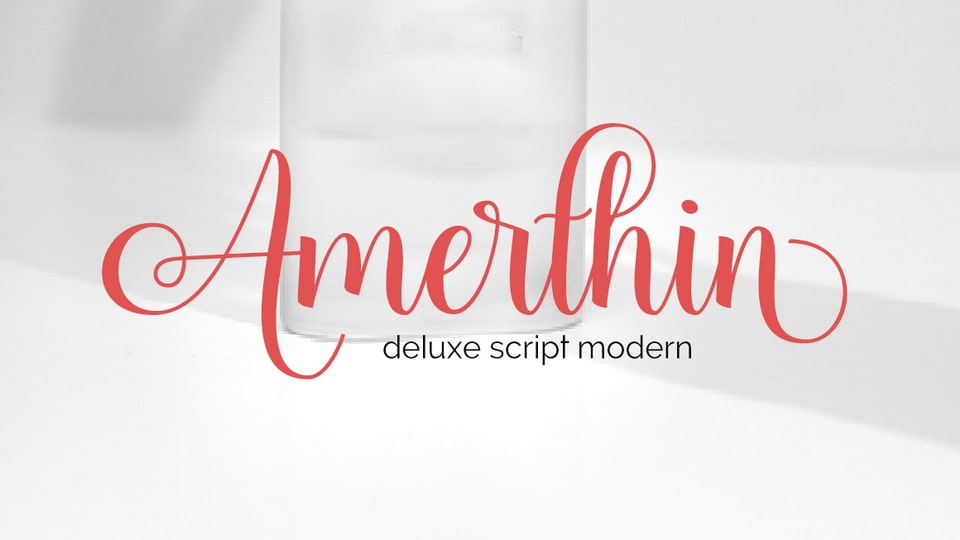
Amerthin is a classy, handwritten font with a distinctive curve, within which there are some interesting features that are perfect for stylish, feminine projects.